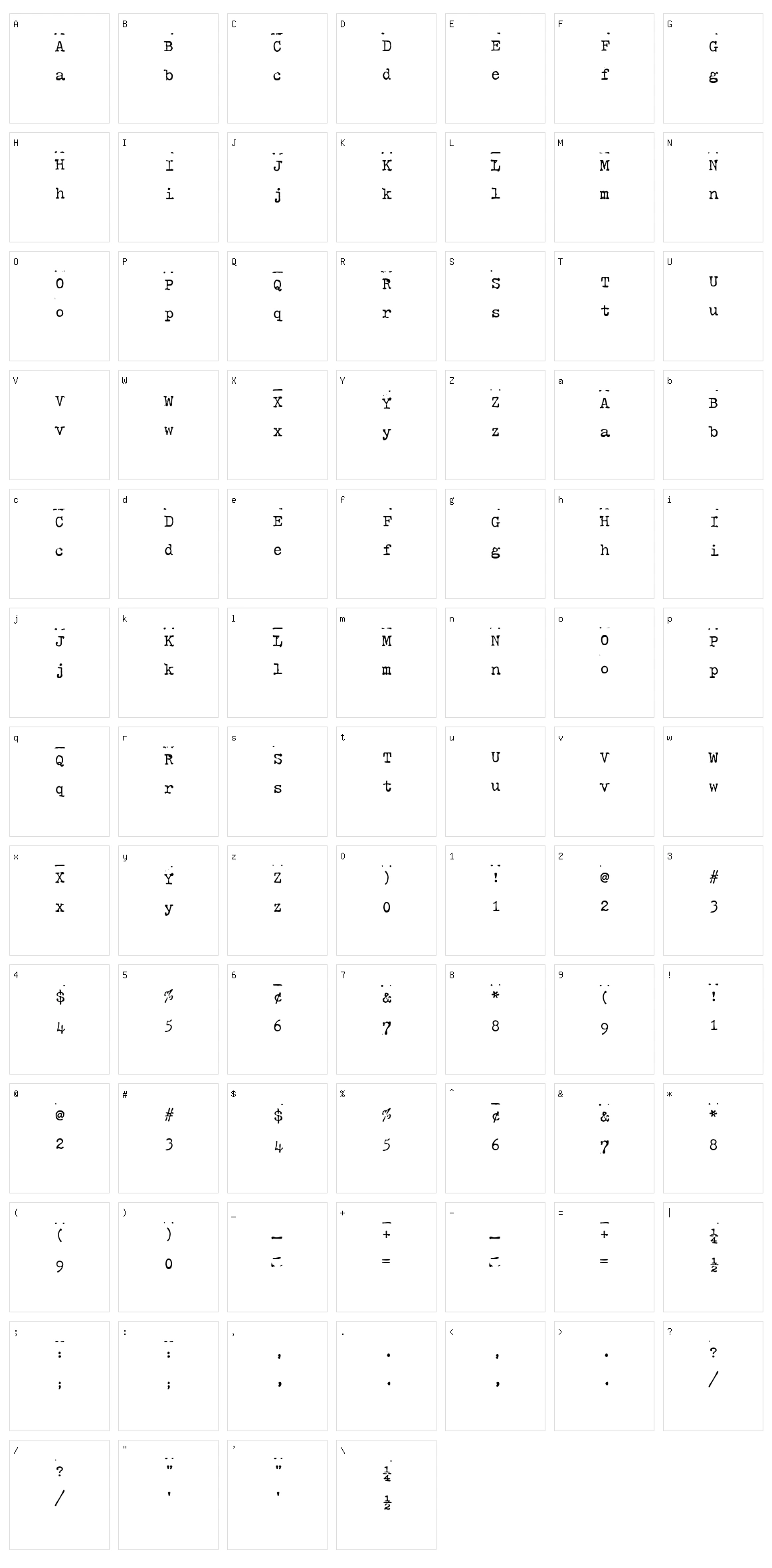
Okay, so I have a confession:
this was the first font I ever made.
It was really easy, not like the stuff I'm working on now, which is really hard and time consuming. But I got familiar with Fontographer, and I do think Hammerkeys is kind of interesting.